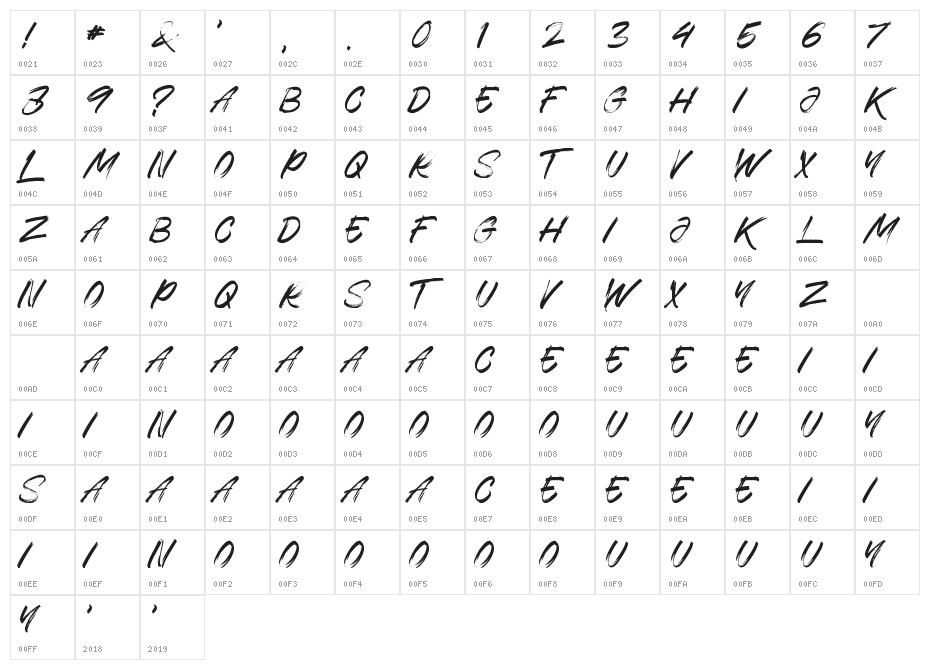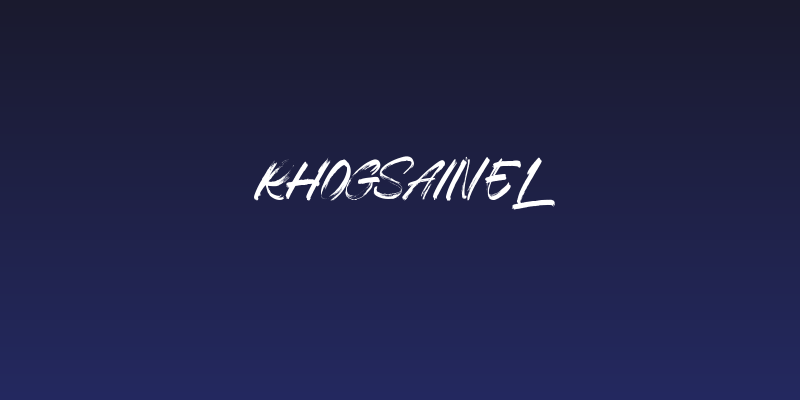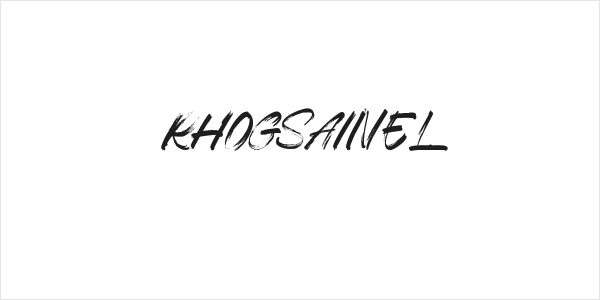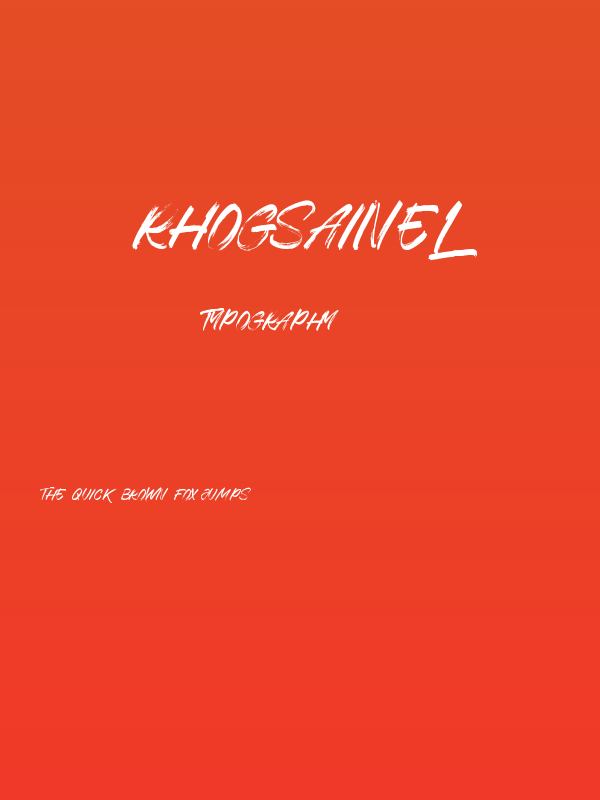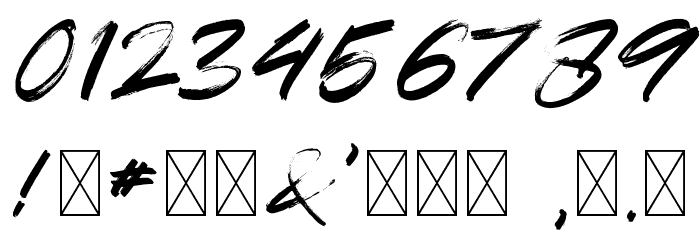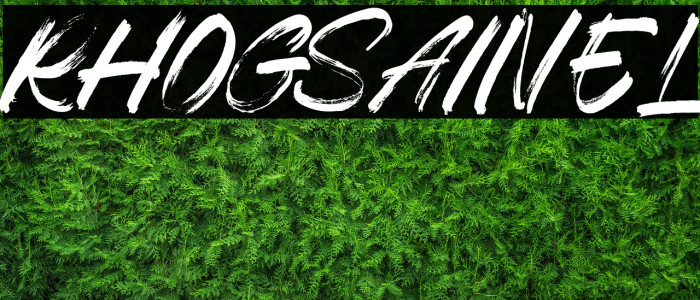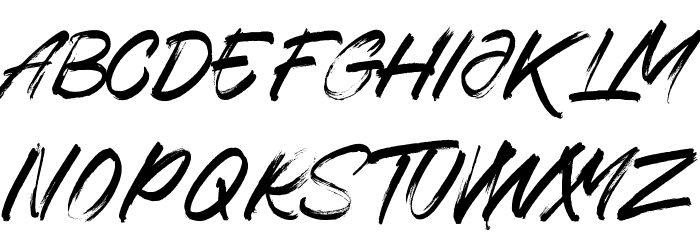
Rhogsainel Font
Rhogsainel Description
This font features a dynamic and expressive brush script style, characterized by its bold, sweeping strokes and energetic flow. The letters are crafted with a sense of movement, giving each character a unique and artistic flair. The uppercase and lowercase letters maintain a consistent style, with slightly varying stroke weights that add to the font's lively appearance. Numbers and special characters are designed to complement the overall aesthetic, ensuring a cohesive look across different text elements. The font's design is ideal for projects that require a touch of creativity and boldness.